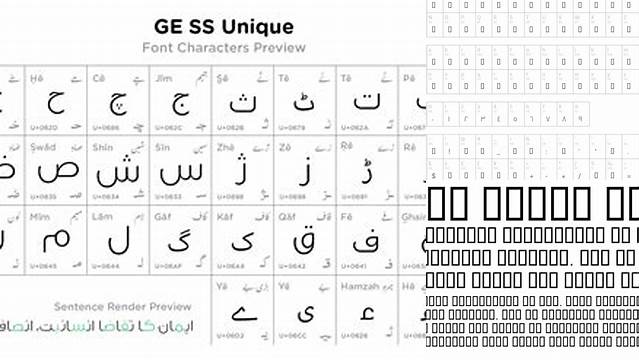
1. Understanding the Allure of Unique Fonts
Unique fonts, like the Ge Ss Unique Medium Font, are crucial for branding and design because they help set your work apart. In a world saturated with generic typography, using a distinctive font can make your message memorable and create a lasting impression. Think about it – have you ever seen a logo or advertisement and immediately recognized it just by the font used? That's the power of a unique typeface! When you choose a font that isn't commonly used, you're essentially crafting a visual identity that aligns with your brand's personality and values. It can convey sophistication, playfulness, seriousness, or creativity, depending on the font's characteristics. Furthermore, unique fonts can elevate the overall aesthetic of your projects, making them look more polished and professional. Using a font like Ge Ss Unique Medium Font can also attract attention and spark interest, encouraging viewers to engage more deeply with your content. Ultimately, incorporating unique fonts into your design toolkit is a strategic way to enhance your brand's visibility and recognition. So, yeah, fonts matter a lot!
2. What Makes Ge Ss Unique Medium Font Special?
The Ge Ss Unique Medium Font stands out due to its distinct blend of modernity and readability. It's not just another font; it's a carefully crafted typeface that balances aesthetic appeal with functional design. The medium weight gives it versatility, making it suitable for both headings and body text. What really sets it apart are the subtle nuances in its letterforms – the slight curves, the balanced proportions, and the unique terminals that add character without sacrificing legibility. This font manages to be both eye-catching and easy on the eyes, a rare combination in the world of typography. Its clean lines and contemporary feel make it a great choice for projects that require a touch of sophistication and uniqueness. Moreover, the Ge Ss Unique Medium Font is designed to work well across various media, whether it's print or digital. This adaptability ensures that your message remains consistent and impactful, no matter where it's displayed. All these elements combine to make this font a special and valuable asset for any designer or brand looking to make a statement.
8. Using Ge Ss Unique Medium Font for Branding
The Ge Ss Unique Medium Font can be a game-changer for your branding efforts. A well-chosen font can significantly impact how your brand is perceived. This particular font, with its unique and modern aesthetic, can add a touch of sophistication and originality to your brand identity. Consider using it for your logo, website headings, and marketing materials to create a consistent and memorable visual experience. The font's medium weight makes it versatile enough to work in various contexts, from print to digital. When using it for branding, make sure it aligns with your brand's personality and values. For example, if your brand is all about innovation and creativity, the Ge Ss Unique Medium Font can help convey that message. Pay attention to how the font pairs with your brand colors and imagery to create a cohesive and impactful brand identity. By strategically incorporating this font into your branding strategy, you can elevate your brand's presence and make a lasting impression on your audience. Go get 'em!
9. Pairing Ge Ss Unique Medium Font with Other Fonts
Pairing fonts effectively is an art, but when done right, it can elevate your design from good to amazing. When using the Ge Ss Unique Medium Font, consider pairing it with a complementary font that enhances its unique qualities without overshadowing it. A classic sans-serif font like Open Sans or Roboto can work well for body text, providing a clean and readable contrast to the more distinctive Ge Ss Unique Medium Font. Alternatively, you could pair it with a subtle serif font like Merriweather for a more traditional look with a modern twist. The key is to choose a font that balances readability with visual appeal and doesn't compete with the Ge Ss Unique Medium Font for attention. Experiment with different font combinations and pay attention to how they look together in various contexts. Consider factors like font size, line height, and letter spacing to create a harmonious and balanced design. By carefully selecting and pairing fonts, you can create a visual hierarchy that guides the reader's eye and enhances the overall impact of your design.
10. Designing a Logo with Ge Ss Unique Medium Font
Designing a logo with the Ge Ss Unique Medium Font can give your brand a distinct and modern edge. A logo is the face of your brand, and the font you choose plays a crucial role in conveying your brand's personality and values. This font's unique letterforms and balanced design make it an excellent choice for creating a memorable and professional logo. When designing your logo, start by experimenting with different variations of the font, such as using all caps or lowercase letters. Consider adding a unique graphic element or symbol to complement the font and make your logo even more distinctive. Pay attention to the font size, spacing, and color to ensure it looks balanced and visually appealing. Test your logo on different backgrounds and in various sizes to ensure it remains legible and impactful. Remember, your logo should be versatile enough to work across different media, from business cards to websites. By carefully designing your logo with the Ge Ss Unique Medium Font, you can create a strong and recognizable brand identity that sets you apart from the competition. Rock on!
11. Using Ge Ss Unique Medium Font in Web Design
Incorporating the Ge Ss Unique Medium Font into your web design can significantly enhance the user experience. Typography is a critical element of web design, and choosing the right font can make your website more visually appealing and readable. This font's clean lines and modern aesthetic make it a great choice for headings, navigation menus, and other key elements of your website. When using it for web design, ensure it's optimized for web use. This means using a web-friendly format like WOFF or WOFF2 and optimizing the font files for faster loading times. Also, consider the font size, line height, and letter spacing to ensure your text is easy to read on different screen sizes and devices. Test your website on various browsers and devices to identify any potential rendering issues. By carefully integrating the Ge Ss Unique Medium Font into your web design, you can create a website that not only looks great but also provides a seamless and enjoyable user experience. Keep it classy!
12. Creating Eye-Catching Headlines with Ge Ss Unique Medium Font
If you're aiming to grab attention with your headlines, the Ge Ss Unique Medium Font is your secret weapon. A well-crafted headline can make all the difference in attracting readers and conveying your message effectively. This font's distinct and modern design instantly draws the eye, making it perfect for headlines that need to stand out. When creating headlines, consider using a larger font size and a contrasting color to make them even more prominent. Experiment with different text alignments and spacing to create a visually appealing layout. Use strong and concise language that captures the essence of your message. Pair the Ge Ss Unique Medium Font with a complementary font for the body text to create a balanced and readable design. Whether you're designing a website, a poster, or a social media graphic, using this font for your headlines can help you create eye-catching and impactful visuals. Boom!
13. Designing Business Cards with Ge Ss Unique Medium Font
A business card is often the first impression someone has of your brand, so it's essential to make it count. Using the Ge Ss Unique Medium Font on your business cards can add a touch of sophistication and professionalism. Its clean and modern design makes it an excellent choice for conveying a sense of reliability and attention to detail. When designing your business cards, keep the layout clean and uncluttered. Use a legible font size and ensure there's enough contrast between the text and the background. Consider using this font for your name, job title, and company name to make them stand out. Pair it with a simpler font for your contact information to maintain readability. Choose high-quality paper stock and printing techniques to enhance the overall look and feel of your business cards. By carefully designing your business cards with the Ge Ss Unique Medium Font, you can create a memorable and impactful representation of your brand.
14. Using Ge Ss Unique Medium Font in Print Media
The Ge Ss Unique Medium Font isn't just for digital designs; it shines in print media too. Whether you're creating brochures, posters, or magazines, using this font can add a touch of elegance and modernity to your printed materials. Its versatility makes it suitable for both headings and body text, although it's often best used for headings to make a statement. When using it in print, ensure the font size is legible and the line spacing is appropriate for comfortable reading. Choose a paper stock that complements the font and enhances its visual appeal. Consider using contrasting colors to make the text stand out and create a visually engaging design. Before printing, always proofread your designs to ensure there are no errors. By carefully incorporating the Ge Ss Unique Medium Font into your print media projects, you can create professional and visually stunning materials.
15. Creating Social Media Graphics with Ge Ss Unique Medium Font
In the fast-paced world of social media, capturing attention is key. Using the Ge Ss Unique Medium Font in your social media graphics can help your posts stand out from the crowd. Its unique and modern design instantly draws the eye, making it perfect for headlines, captions, and other text elements. When creating social media graphics, keep the design clean and uncluttered. Use a legible font size and ensure there's enough contrast between the text and the background. Consider using this font for your brand name or logo to reinforce brand recognition. Pair it with eye-catching images or videos to create visually appealing content. Optimize your graphics for different social media platforms to ensure they look their best on all devices. By strategically using the Ge Ss Unique Medium Font in your social media graphics, you can create engaging content that resonates with your audience. Stay awesome!
16. Ge Ss Unique Medium Font Alternatives
Sometimes, you might want to explore alternatives to the Ge Ss Unique Medium Font. Maybe you're looking for a similar aesthetic with a slightly different twist, or perhaps you need a font that's more readily available. Some great alternatives include Montserrat, Raleway, and Lato. Montserrat is a clean and modern sans-serif font with a geometric design, making it a versatile choice for various projects. Raleway is another excellent option, known for its elegant and refined appearance. Lato is a highly readable sans-serif font with a warm and friendly feel. When choosing an alternative, consider the overall look and feel you're trying to achieve and how well it aligns with your brand's personality. Experiment with different font combinations to find the perfect fit. While the Ge Ss Unique Medium Font is undoubtedly unique, these alternatives offer similar qualities and can be great additions to your font library. Variety is the spice of life, right?
17. Exploring Similar Font Styles to Ge Ss Unique Medium
If you're drawn to the style of the Ge Ss Unique Medium Font, you might be interested in exploring other fonts with similar characteristics. Fonts that share its modern and clean aesthetic include Futura, Avenir, and Proxima Nova. Futura is a classic geometric sans-serif font that exudes elegance and sophistication. Avenir is another excellent choice, known for its clean lines and balanced proportions. Proxima Nova is a versatile and widely used font with a contemporary feel. These fonts share a similar sense of modernity and readability with the Ge Ss Unique Medium Font, making them great alternatives for various design projects. When exploring similar font styles, pay attention to the subtle nuances in each font's letterforms and how they contribute to the overall visual impact. By experimenting with different fonts, you can find the perfect typeface to complement your design and convey your message effectively. Happy hunting!
18. The Future of Font Design and Ge Ss Unique Medium Font's Place
The future of font design is constantly evolving, driven by technological advancements and changing design trends. As designers continue to push the boundaries of typography, we can expect to see even more innovative and unique fonts emerge. The Ge Ss Unique Medium Font, with its modern and distinctive aesthetic, is well-positioned to remain relevant in the years to come. Its versatility and readability make it a valuable asset for various design projects, from branding to web design. As technology advances, we may see new font formats and rendering techniques that further enhance the visual appeal and functionality of fonts like this one. Additionally, the increasing importance of user experience will likely drive the development of fonts that are optimized for readability and accessibility. The Ge Ss Unique Medium Font embodies these qualities, making it a font that is not only visually appealing but also functional and user-friendly. The sky's the limit!
19. Ge Ss Unique Medium Font and Readability
Readability is king when it comes to choosing a font, and the Ge Ss Unique Medium Font strikes a great balance between style and legibility. A font can be visually stunning, but if it's difficult to read, it's not serving its purpose. This font's clean lines and balanced letterforms make it easy on the eyes, even when used in longer blocks of text. When using it, pay attention to factors like font size, line height, and letter spacing to further enhance readability. Avoid using overly decorative or condensed fonts for body text, as they can strain the reader's eyes. Pair the Ge Ss Unique Medium Font with a simpler font for body text to create a comfortable reading experience. Test your designs on different devices and screen sizes to ensure the text remains legible across various platforms. By prioritizing readability, you can create designs that are not only visually appealing but also user-friendly and accessible.
20. The Psychology of Fonts and Ge Ss Unique Medium Font
Fonts have a subtle but powerful influence on how we perceive messages. The psychology of fonts explores how different typefaces evoke specific emotions and associations. The Ge Ss Unique Medium Font, with its modern and clean design, tends to evoke feelings of sophistication, innovation, and reliability. Its balanced letterforms convey a sense of professionalism and attention to detail. When choosing a font for your design projects, consider the psychological impact you want to create. For example, if you're designing a logo for a tech startup, this font can help convey a sense of modernity and innovation. If you're designing a website for a luxury brand, it can add a touch of elegance and sophistication. By understanding the psychology of fonts, you can make informed decisions that align with your brand's personality and values. Let's get psychological!
21. Ge Ss Unique Medium Font for Different Design Styles
The Ge Ss Unique Medium Font is surprisingly versatile and can be adapted to fit various design styles. Whether you're working on a minimalist design, a modern layout, or a more traditional project, this font can be a valuable asset. In minimalist designs, its clean lines and simplicity can help create a sense of elegance and sophistication. In modern layouts, its contemporary aesthetic can add a touch of innovation and creativity. Even in more traditional projects, it can provide a subtle contrast that elevates the overall design. When using it in different design styles, consider the other elements of your design and how they complement the font. Experiment with different font sizes, colors, and spacing to achieve the desired look and feel. By adapting this font to different design styles, you can create visually appealing and impactful designs that resonate with your target audience.
22. Mastering Typography with Ge Ss Unique Medium Font
Mastering typography is essential for creating visually stunning and effective designs. The Ge Ss Unique Medium Font can be a great tool for honing your typography skills. Typography involves more than just choosing a font; it's about understanding how different fonts work together, how to create visual hierarchy, and how to optimize readability. Experiment with different font pairings, line heights, and letter spacing to see how they impact the overall design. Pay attention to the kerning and tracking to ensure the text looks balanced and visually appealing. Use different font weights and styles to create emphasis and guide the reader's eye. By mastering typography with the Ge Ss Unique Medium Font, you can create designs that are not only visually appealing but also communicate your message effectively. Practice makes perfect, after all!
23. Ge Ss Unique Medium Font and Visual Hierarchy
Creating a strong visual hierarchy is crucial for guiding the reader's eye and conveying information effectively. The Ge Ss Unique Medium Font can be a valuable tool for establishing visual hierarchy in your designs. Use it for headings and subheadings to create clear distinctions between different sections of your content. Vary the font size, weight, and color to create emphasis and draw attention to important elements. Use contrasting fonts for body text to create a clear visual separation. Pay attention to the placement of text elements and use spacing to create visual groupings. By strategically using the Ge Ss Unique Medium Font and other design elements, you can create a visual hierarchy that guides the reader through your content and helps them understand your message. Don't let your message get lost in the noise!
24. Trends in Font Usage and Ge Ss Unique Medium Font
Staying up-to-date with current trends in font usage can help you create designs that are modern and relevant. The Ge Ss Unique Medium Font aligns well with several current trends in typography. Clean and minimalist fonts are increasingly popular, and its simplicity makes it a great choice for modern designs. Geometric fonts are also trending, and its balanced letterforms fit this style perfectly. Additionally, fonts that are optimized for readability are in high demand, and its clear and legible design makes it a user-friendly option. By incorporating the Ge Ss Unique Medium Font into your designs, you can create visuals that are both stylish and functional. Keep your eyes on the horizon!
25. Open Source Alternatives to Ge Ss Unique Medium Font
If you're looking for open-source alternatives to the Ge Ss Unique Medium Font, there are several excellent options available. Open-source fonts are free to use and distribute, making them a great choice for projects with budget constraints. Some popular open-source alternatives include Open Sans, Lato, and Roboto. Open Sans is a highly readable sans-serif font that is widely used in web design. Lato is another excellent option, known for its warm and friendly feel. Roboto is a versatile and modern font that works well in various contexts. These open-source fonts offer similar qualities to the Ge Ss Unique Medium Font, making them great alternatives for your design projects. Free is good!
26. Ge Ss Unique Medium Font and Mobile Optimization
In today's mobile-first world, optimizing your designs for mobile devices is essential. The Ge Ss Unique Medium Font can be a great choice for mobile designs, but it's important to ensure it's optimized for smaller screens. Use a legible font size and ensure there's enough contrast between the text and the background. Avoid using overly decorative or condensed fonts, as they can be difficult to read on mobile devices. Test your designs on different mobile devices to ensure the text remains legible and visually appealing. Consider using a responsive design framework to ensure your designs adapt to different screen sizes. By optimizing the Ge Ss Unique Medium Font for mobile devices, you can create a seamless and enjoyable user experience. Mobile matters!
27. Licensing Considerations for Ge Ss Unique Medium Font
Before using the Ge Ss Unique Medium Font in your projects, it's important to understand the licensing considerations. Font licenses dictate how you can use the font, including whether it can be used for commercial purposes, whether you need to give attribution, and whether you can modify the font. Some fonts are free for personal use but require a license for commercial use. Others are open-source and can be used for any purpose without restriction. Always read the font's license carefully before using it to ensure you're complying with the terms. If you're unsure about the license, it's best to err on the side of caution and seek clarification from the font's creator. Play it safe, guys.
28. Ge Ss Unique Medium Font and Accessibility
Accessibility is a crucial consideration in design, ensuring that your designs are usable by people with disabilities. The Ge Ss Unique Medium Font can be used in accessible designs, but it's important to follow accessibility guidelines. Use a legible font size and ensure there's enough contrast between the text and the background. Provide alternative text for images and other non-text elements. Use semantic HTML to structure your content and make it easier for assistive technologies to interpret. Test your designs with assistive technologies to ensure they're usable by people with disabilities. By prioritizing accessibility, you can create designs that are inclusive and user-friendly for everyone.
29. Resources for Learning More About Font Design
If you're interested in learning more about font design, there are many valuable resources available online and in print. Websites like FontPair and Typewolf offer inspiration and guidance on font pairing. Books like "The Elements of Typographic Style" by Robert Bringhurst provide in-depth knowledge of typography principles. Online courses and workshops can teach you the basics of font design and help you develop your skills. Experimenting with different fonts and design techniques is also a great way to learn and improve. By investing in your font design education, you can create visually stunning and effective designs. Knowledge is power!
30. Ge Ss Unique Medium Font: A Summary and Final Thoughts
So, there you have it! A deep dive into the world of the Ge Ss Unique Medium Font. From understanding its unique appeal and ensuring legal downloads to mastering its use in various design styles, we've covered it all. This font, with its modern aesthetic and balanced readability, is a valuable asset for any designer looking to elevate their work. Remember to always consider licensing, accessibility, and mobile optimization when using fonts in your projects. By following these guidelines and continuing to explore the world of typography, you can create designs that are not only visually appealing but also effective and user-friendly. Now go out there and create something amazing! You got this!